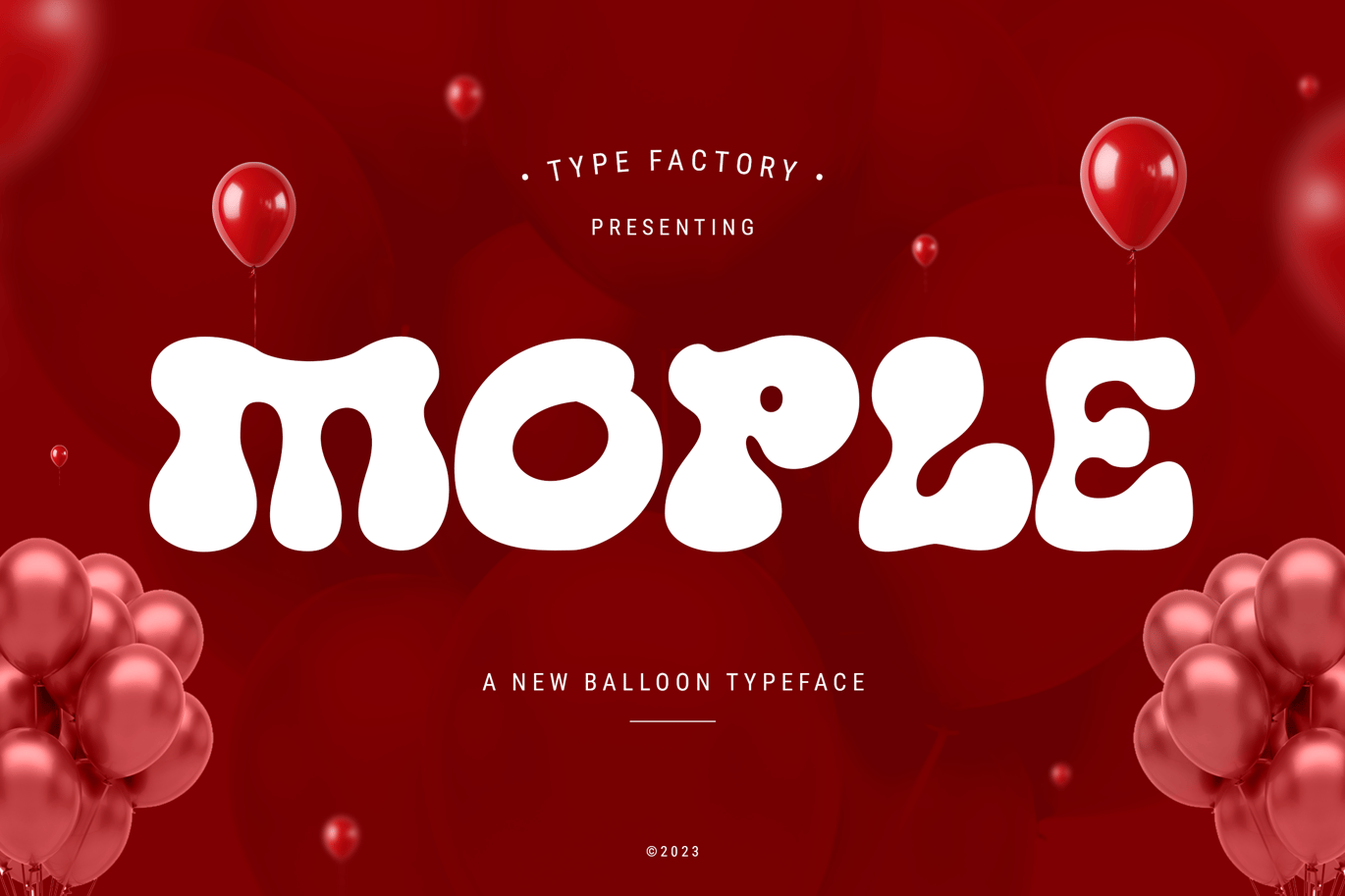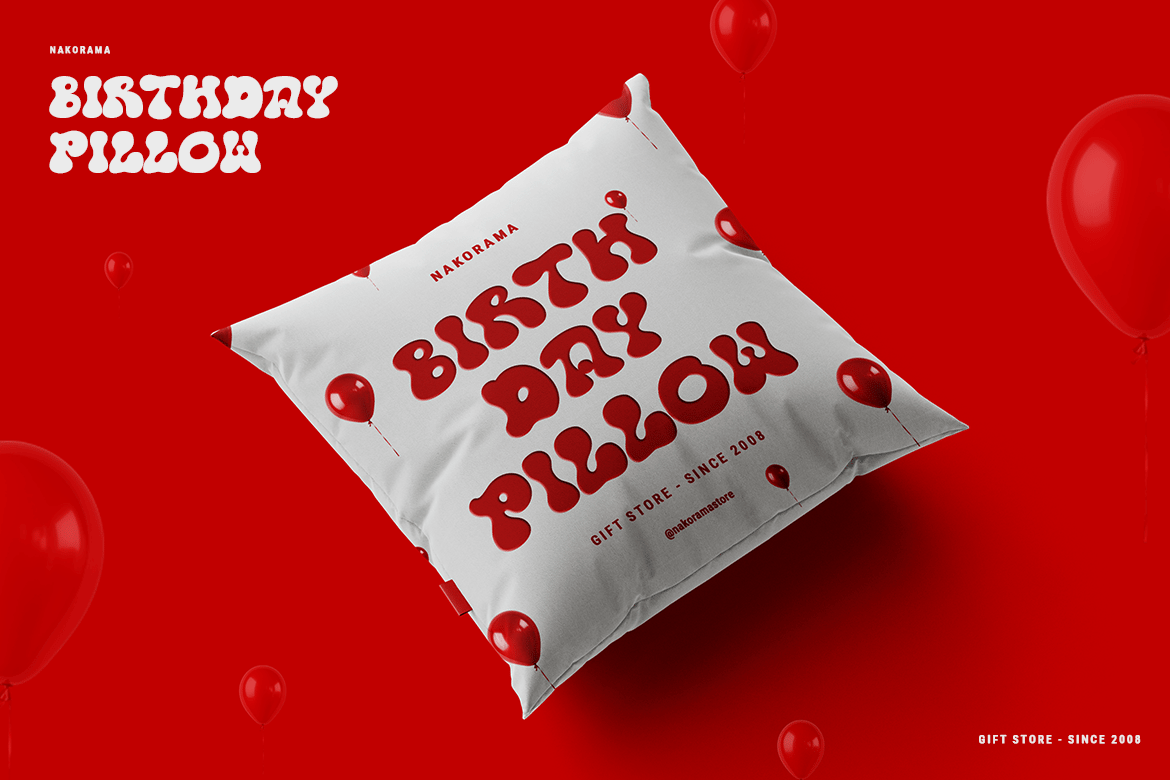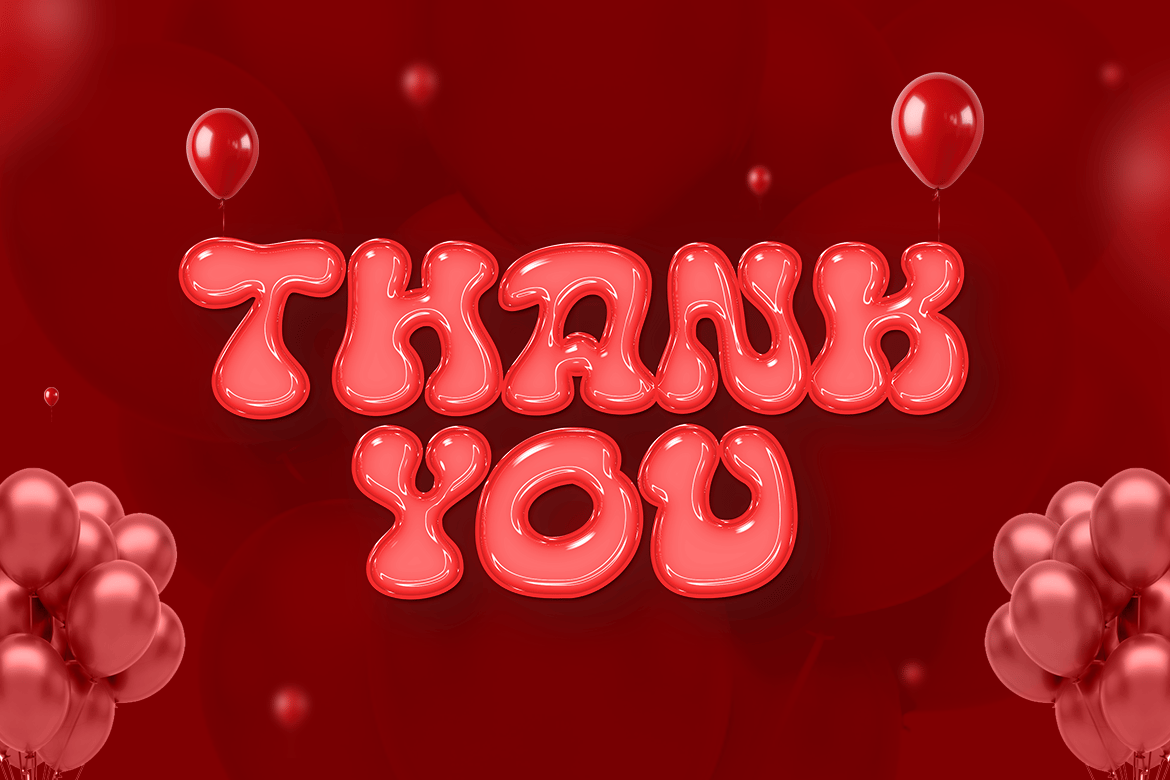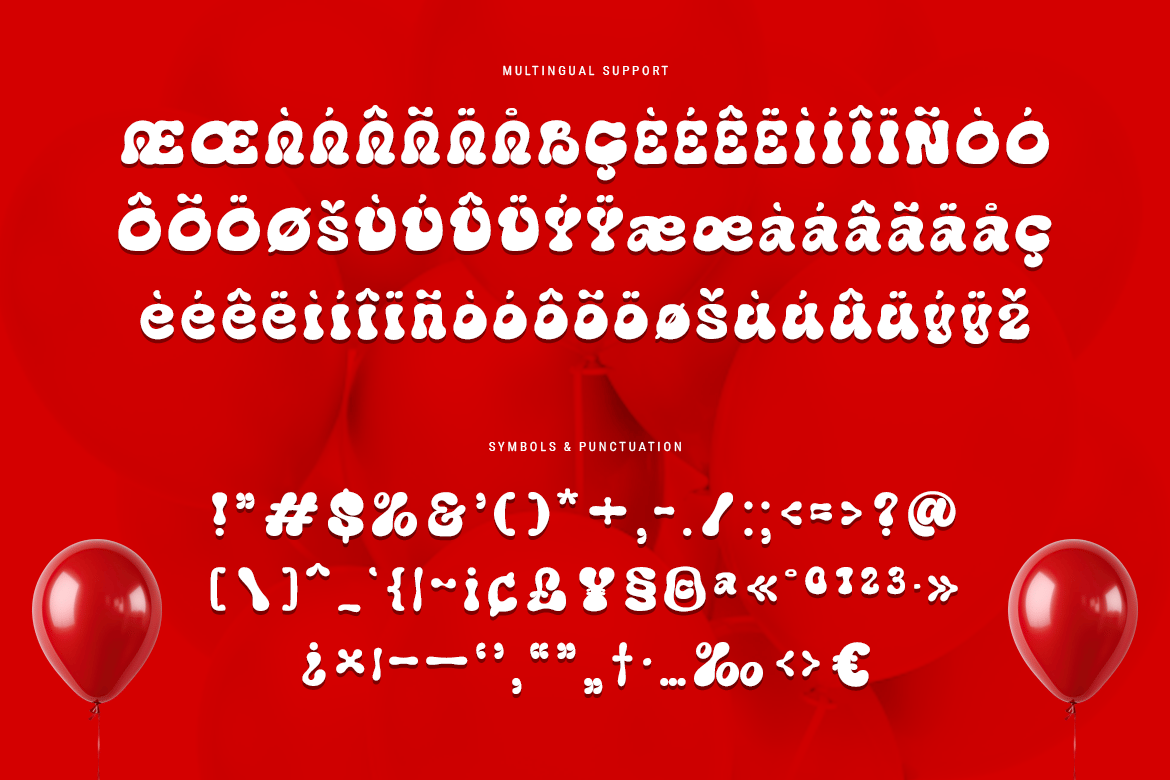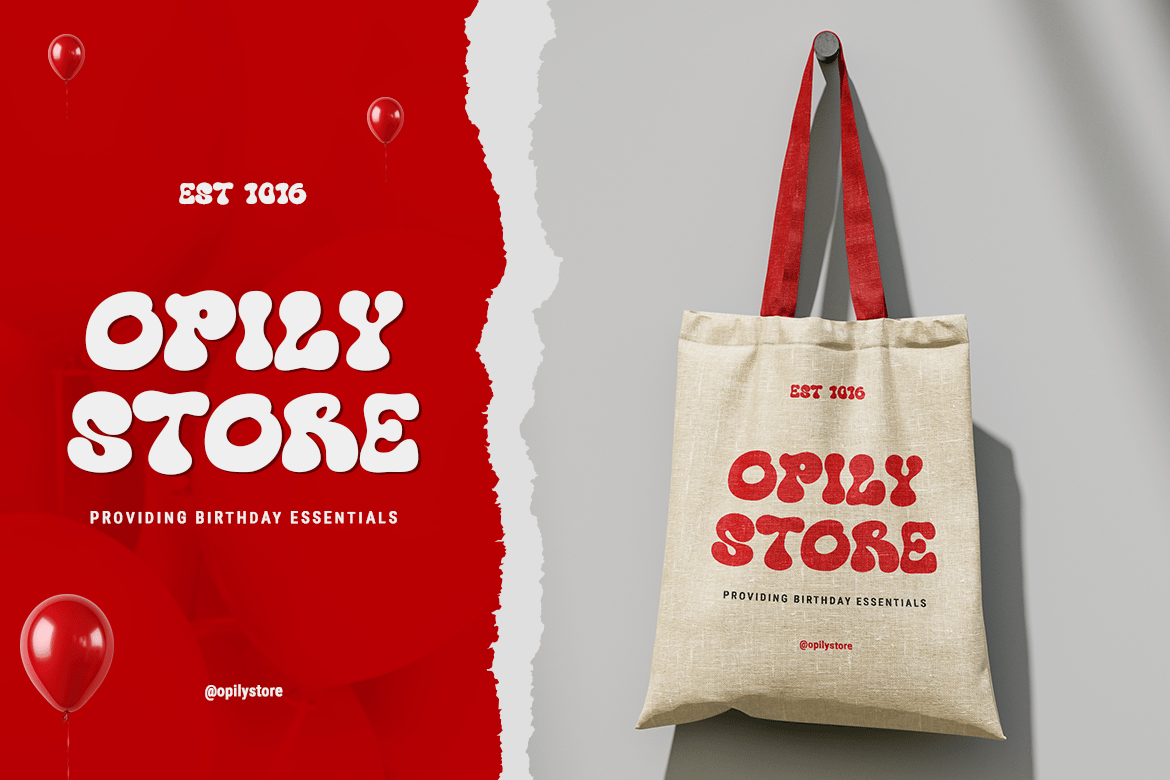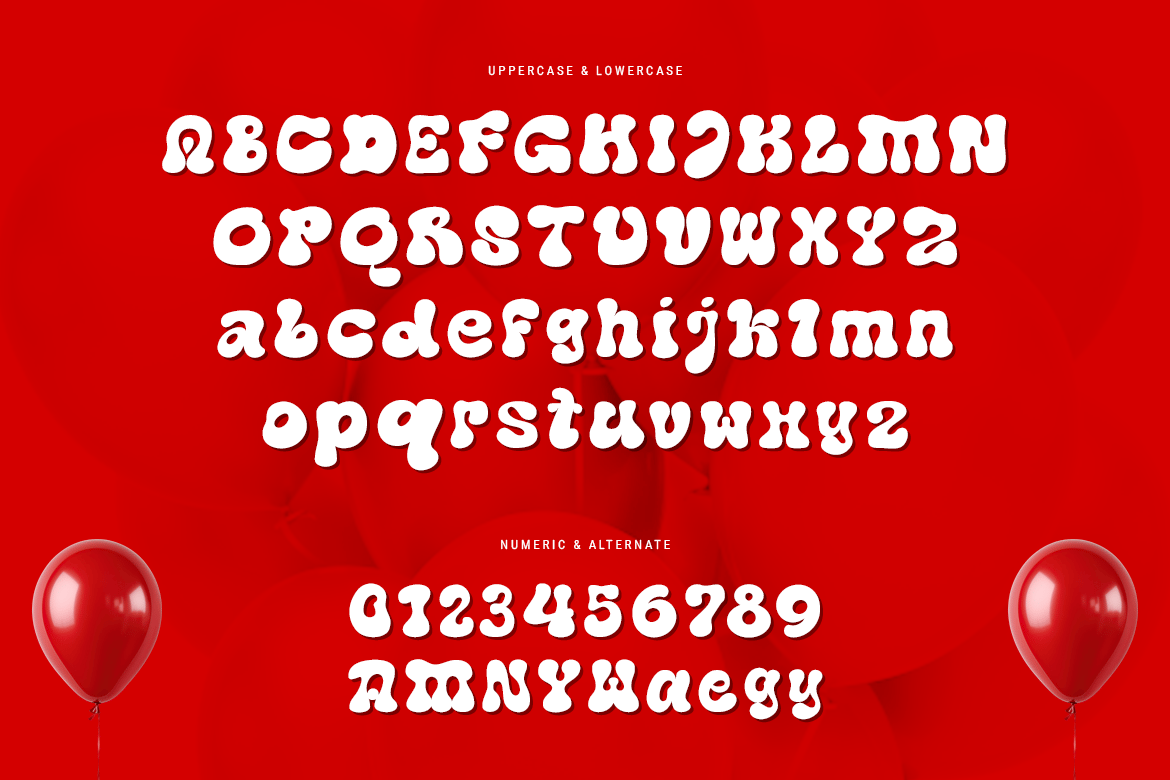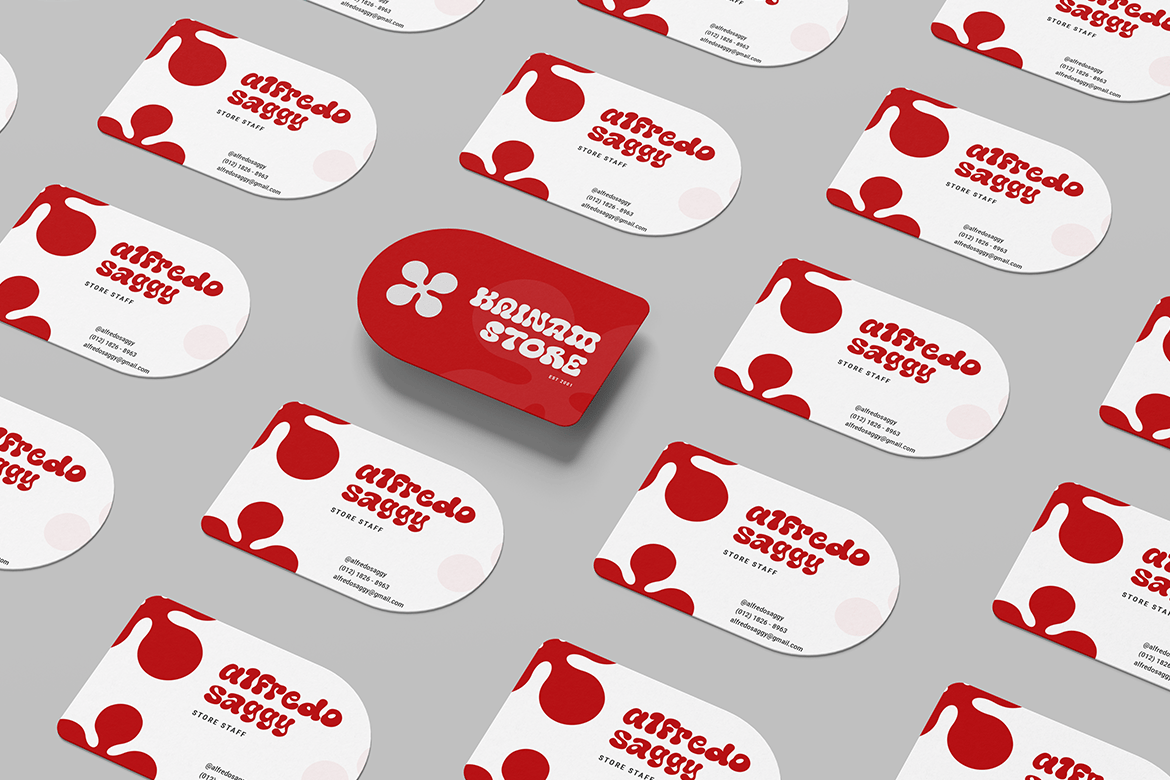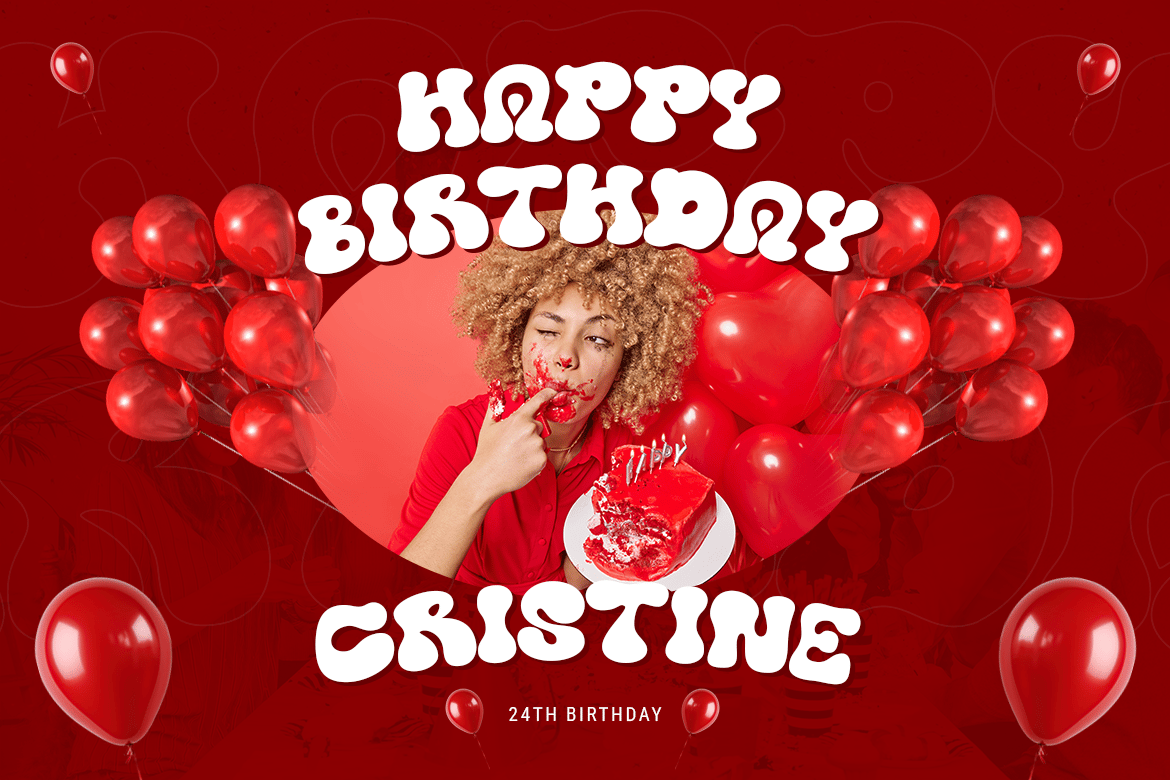
Mople – Balloon Typeface
Mople is a fun and playful balloon typeface designed to bring a sense of joy and whimsy to your projects. Its rounded, inflated letterforms make it perfect for children’s designs, party invitations, posters, and playful branding. Mople’s bubbly and light-hearted aesthetic adds a cheerful vibe, making it ideal for designs that need to convey fun, happiness, and celebration. Whether used for print or digital projects, Mople instantly brightens up your work with its joyful, balloon-like style.